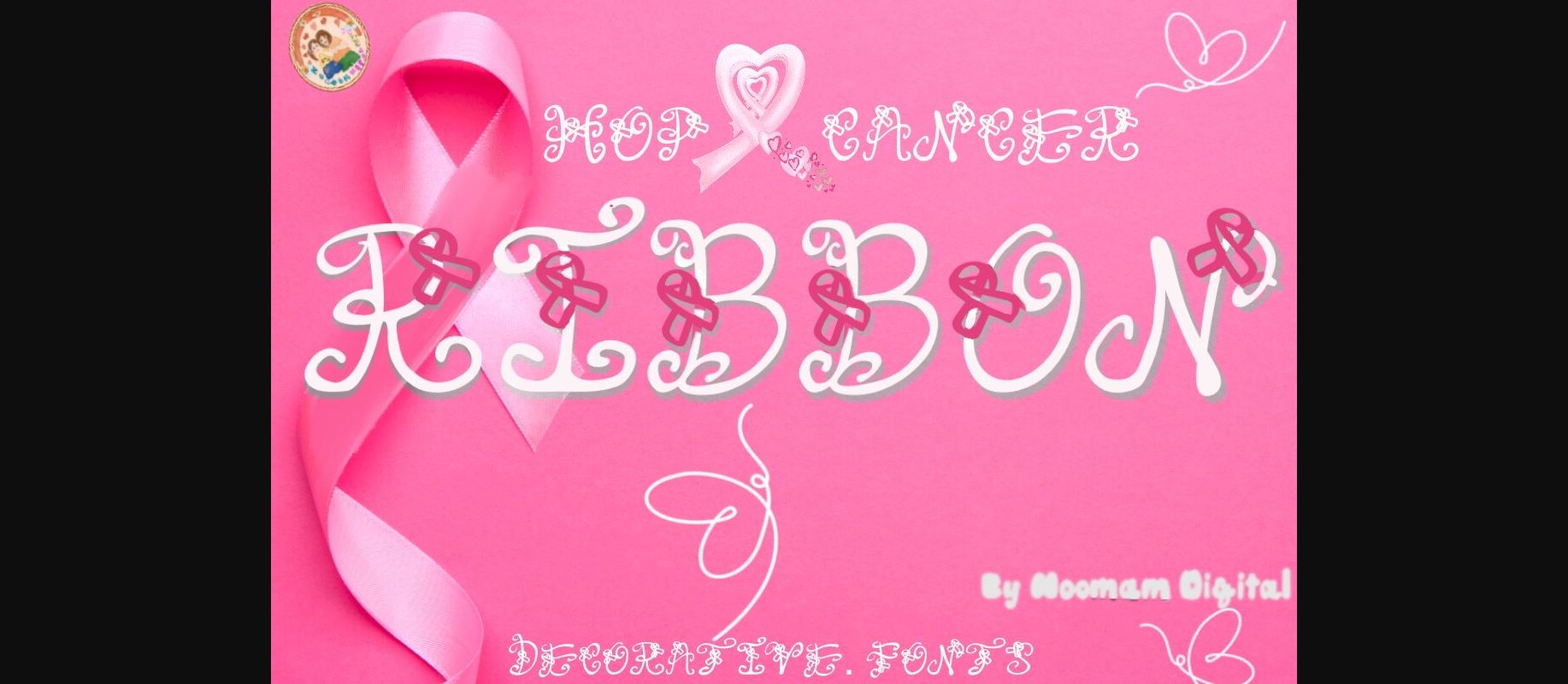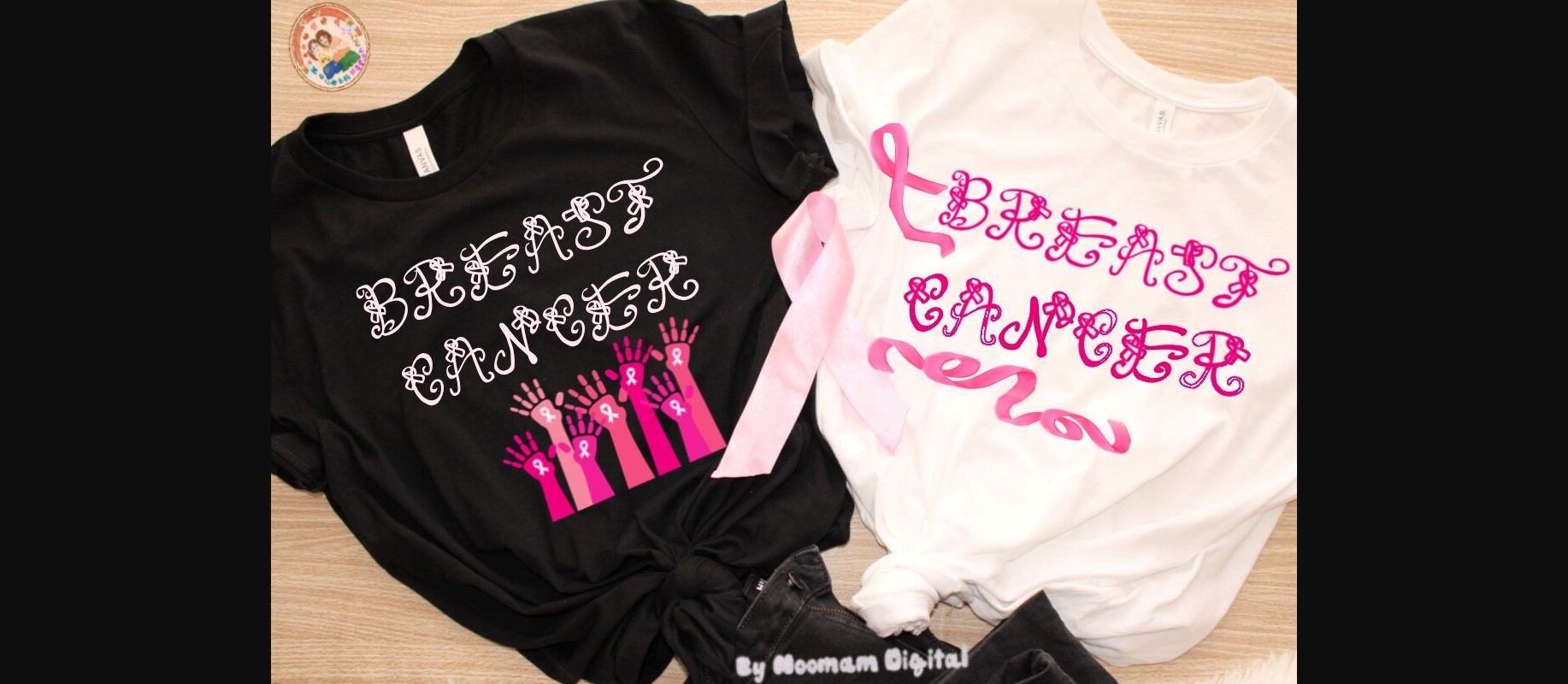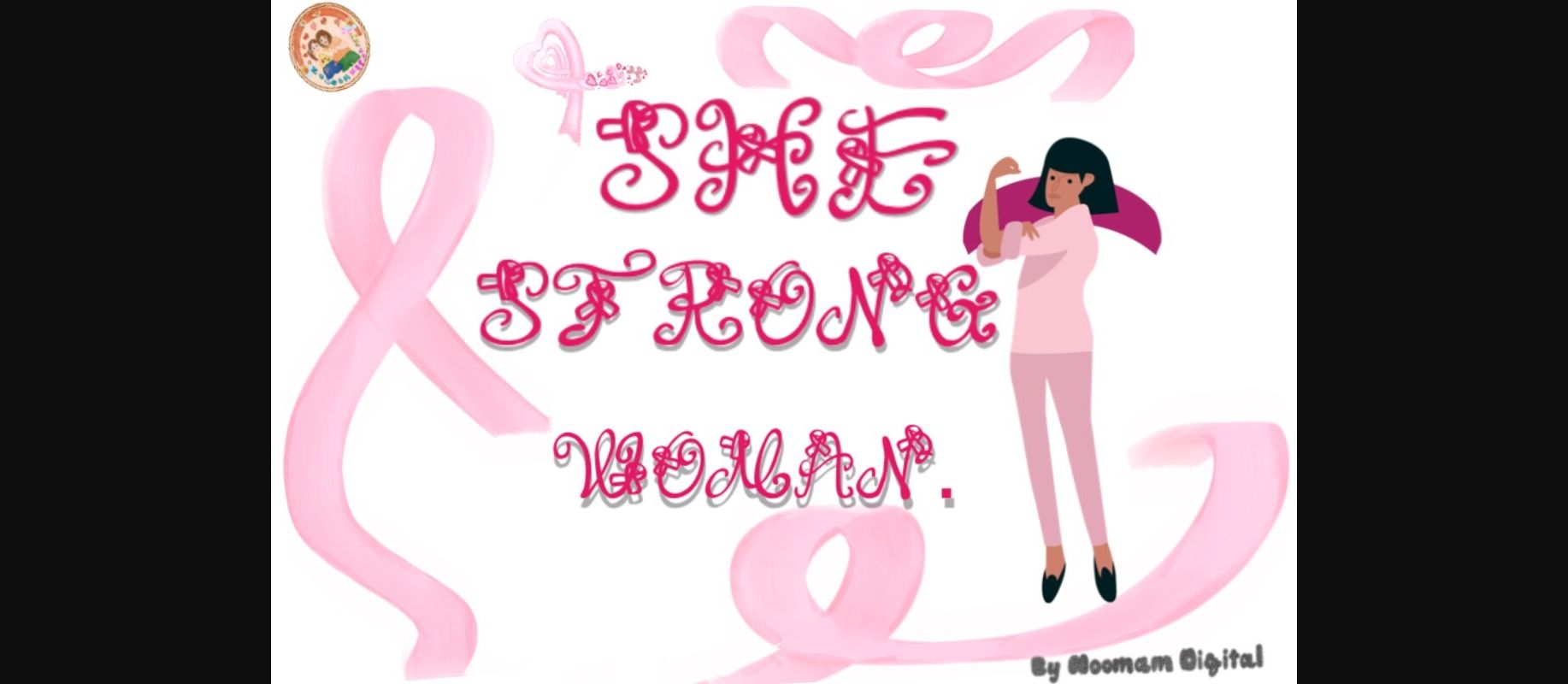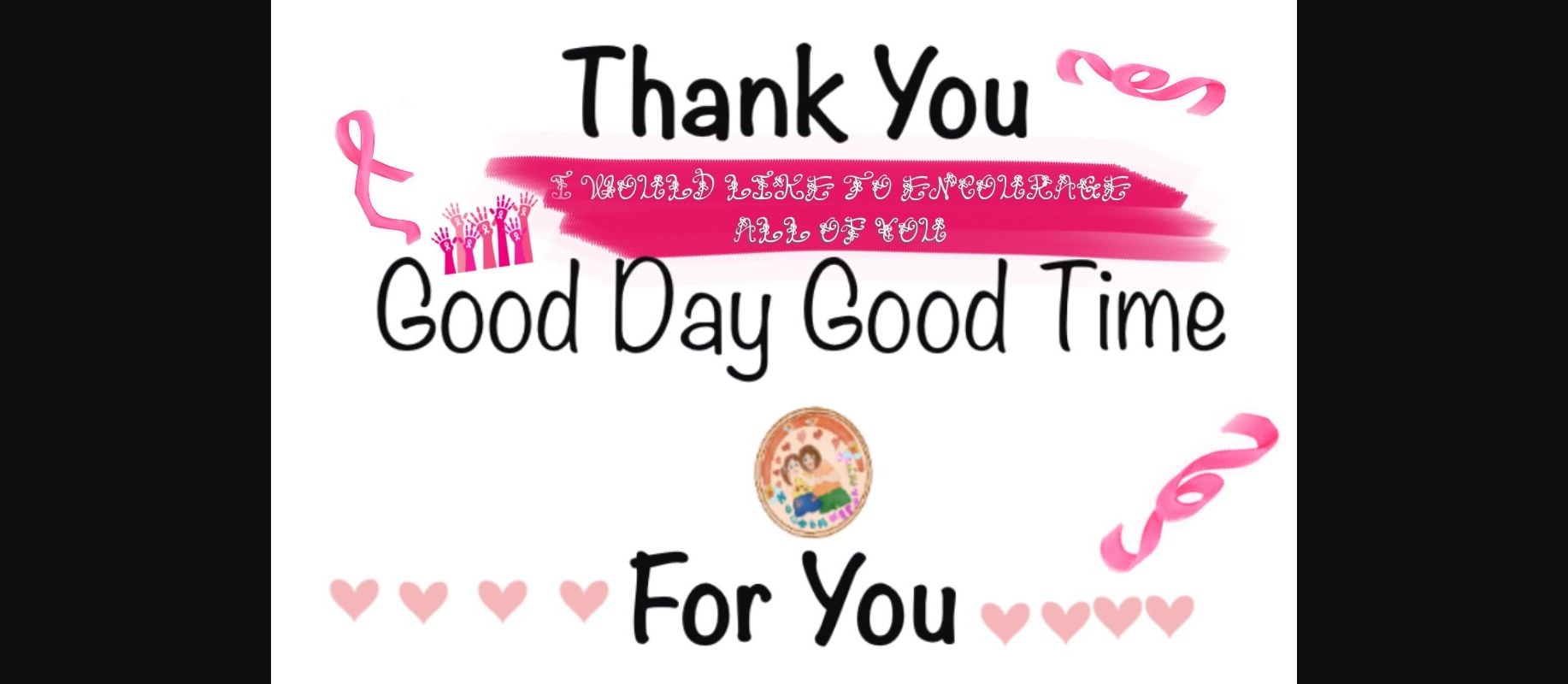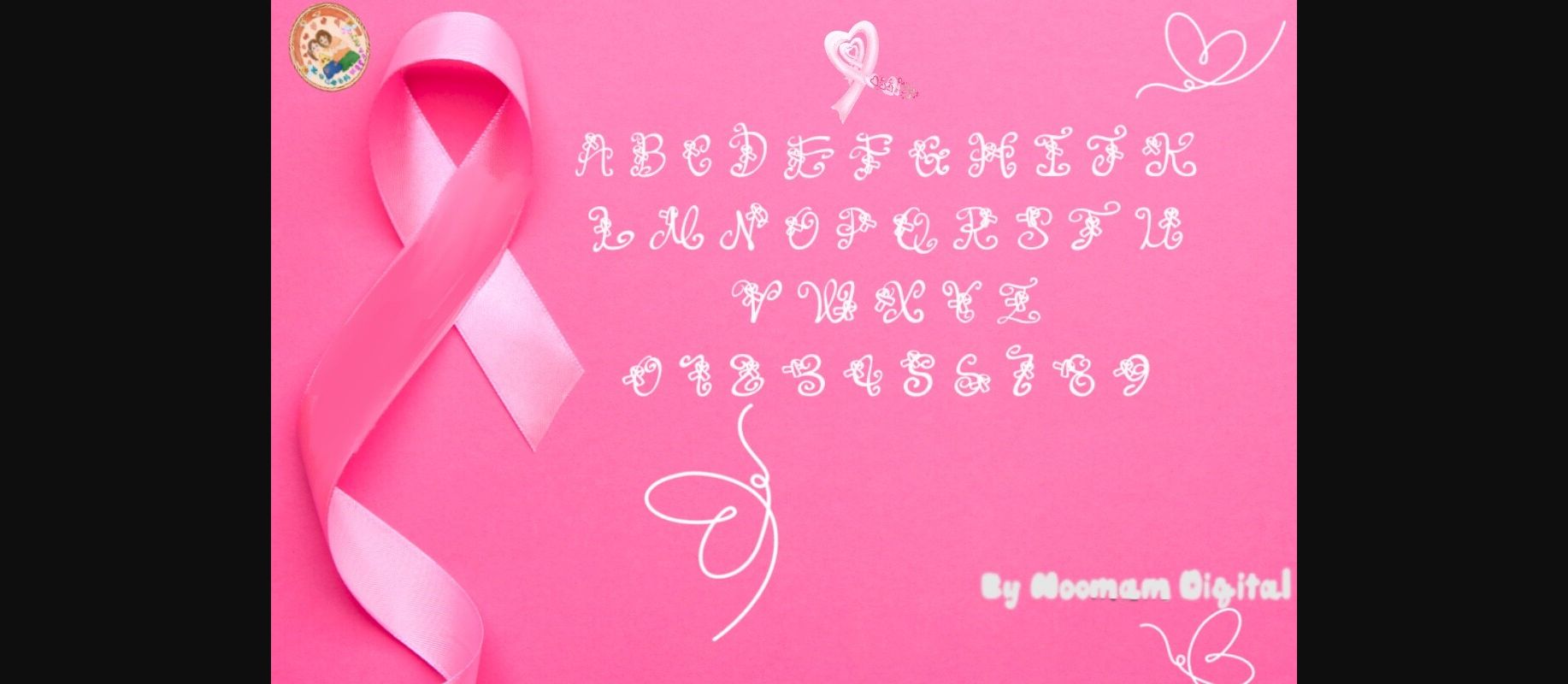
Ribbon Font
About Ribbon Font
RIBBON FONT is a the motivation to fight is strong with a Woman spirit. Is suitable for both professional-looking projects such as branding designs, labels, websites, and business cards as well as casual designs like packaging, posters, flyers, quotes, social media posts, invitations, and special occasions cards, etc